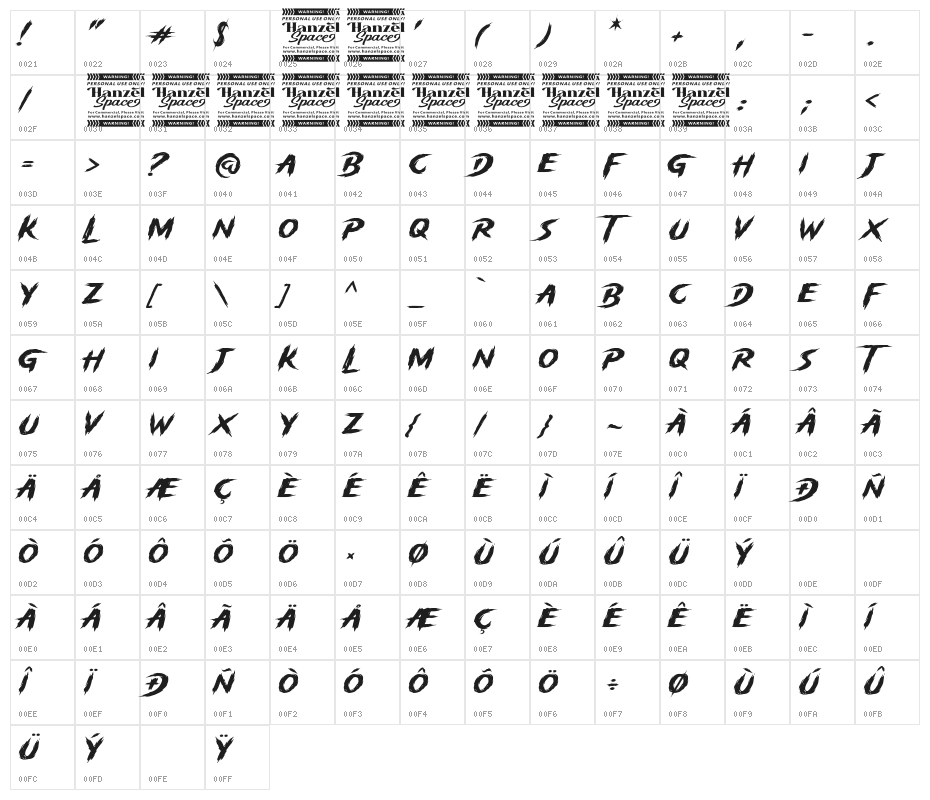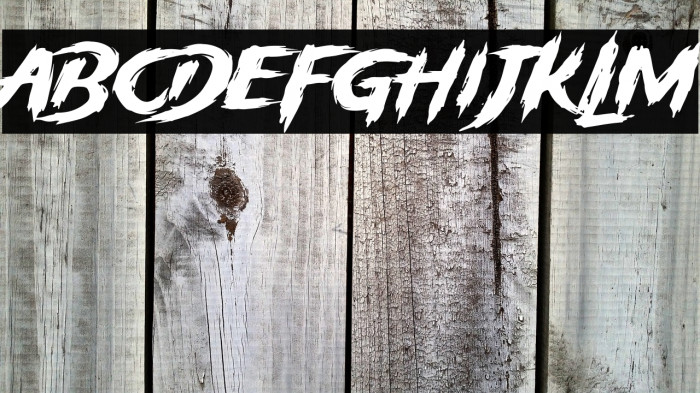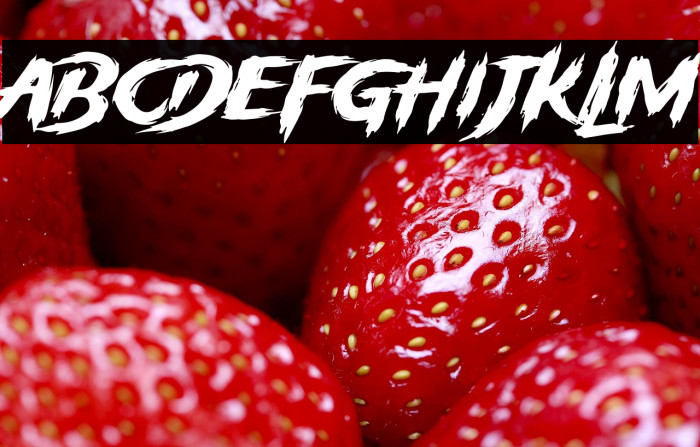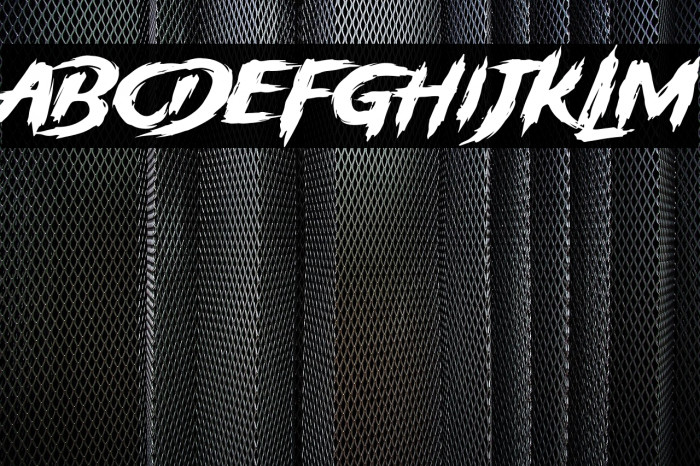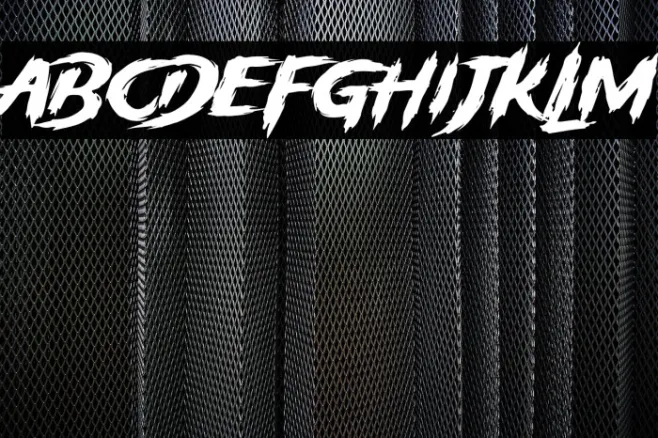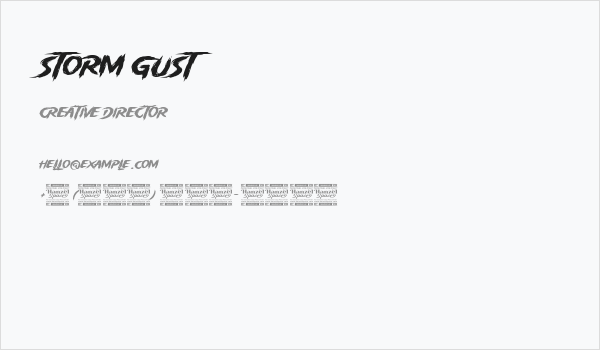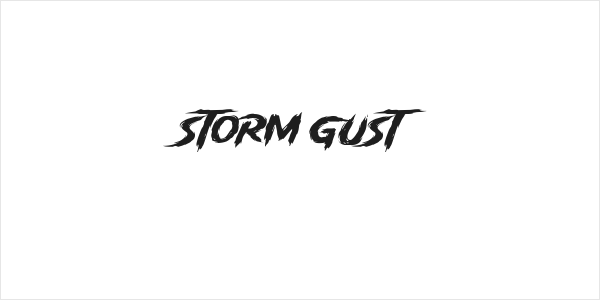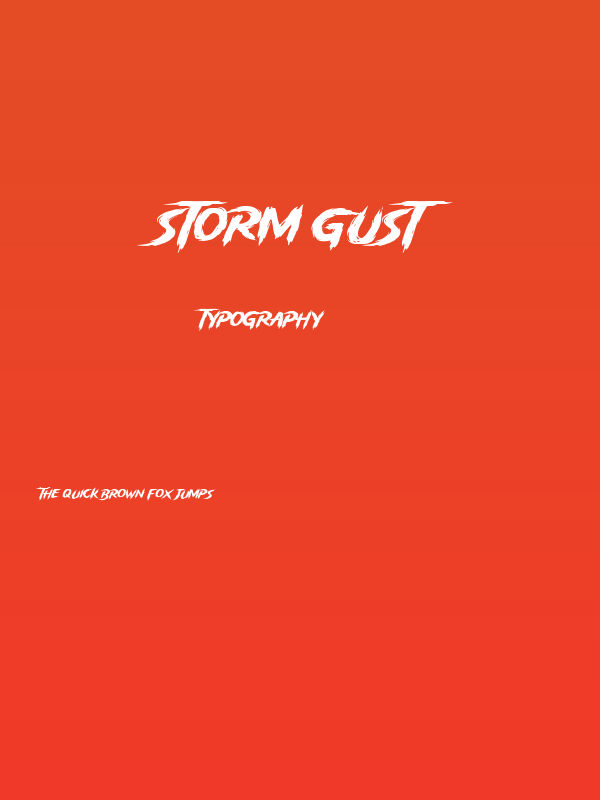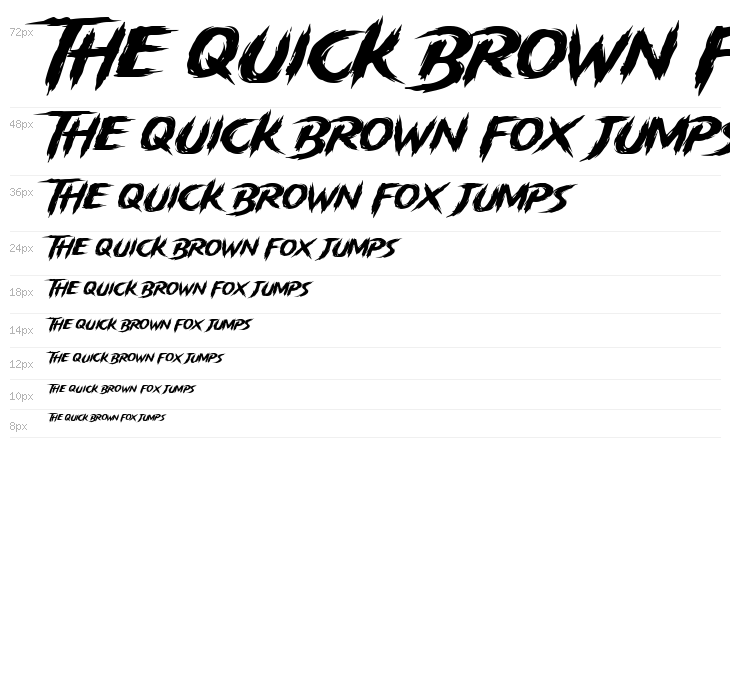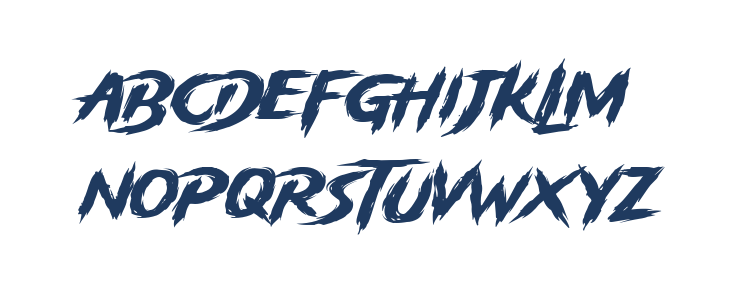
Storm Gust Font
Storm Gust Description
This font features a bold and dynamic brush style, characterized by sharp, jagged edges and a sense of movement reminiscent of stormy weather. The uppercase and lowercase letters maintain a consistent, energetic flow, with strokes that vary in thickness, adding to the dramatic effect. The numbers and special characters follow the same bold and expressive design, making them stand out. The overall appearance is aggressive and eye-catching, suitable for projects that require a strong visual impact.
| Proposed Projects | Ideal for use in posters, album covers, sports branding, and any project needing a bold, energetic typeface. |